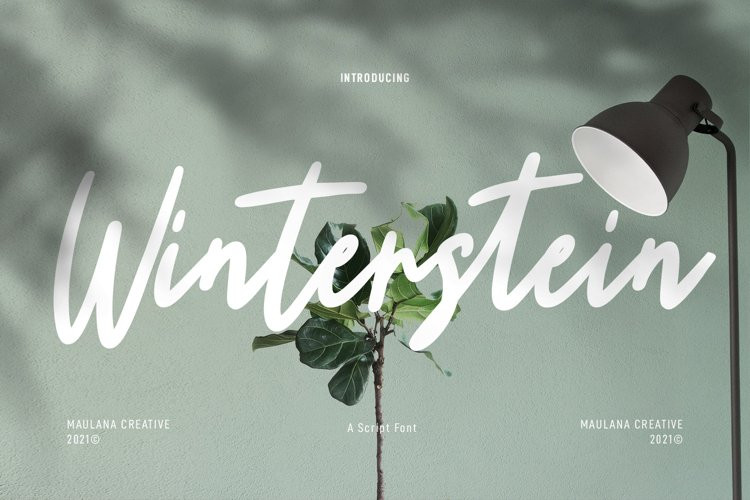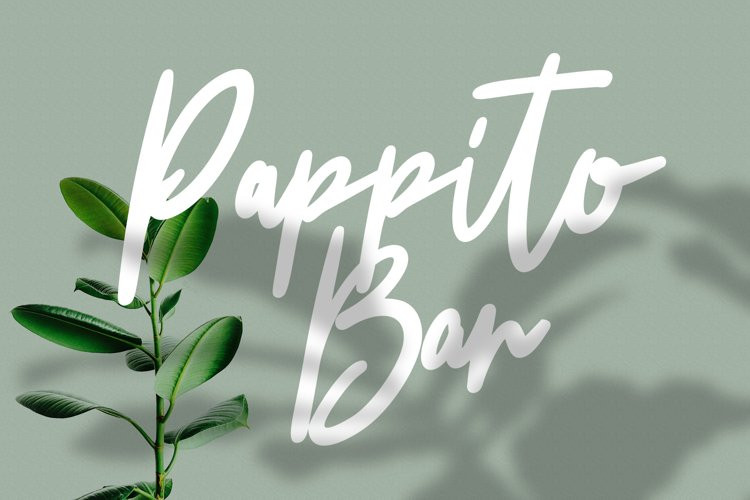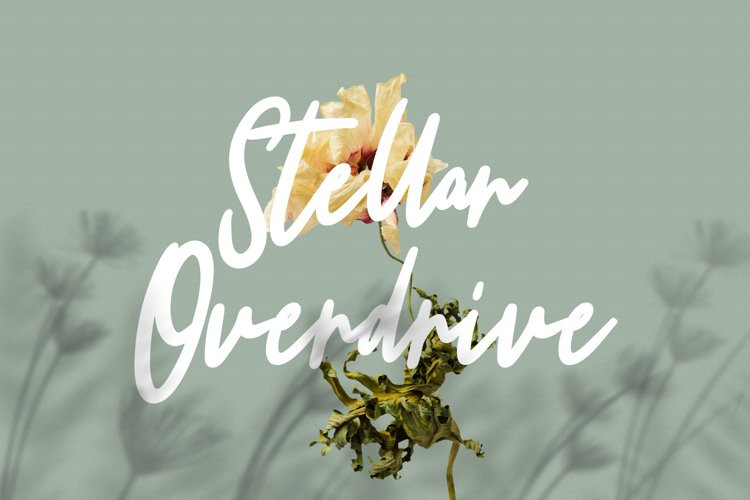
Winterstein Font
Winterstein FontWinterstein is a unique casual script font. With bold stroke, fun character with some of ligatures. To give you an extra creative work. Winterstein font support multilingual more than 100+ language. This font is good for logo design, Social media, Movie Titles, Books Titles, a short text even a long text letter and good for your secondary text font with sans or serif. Make a stunning work with Winterstein font.